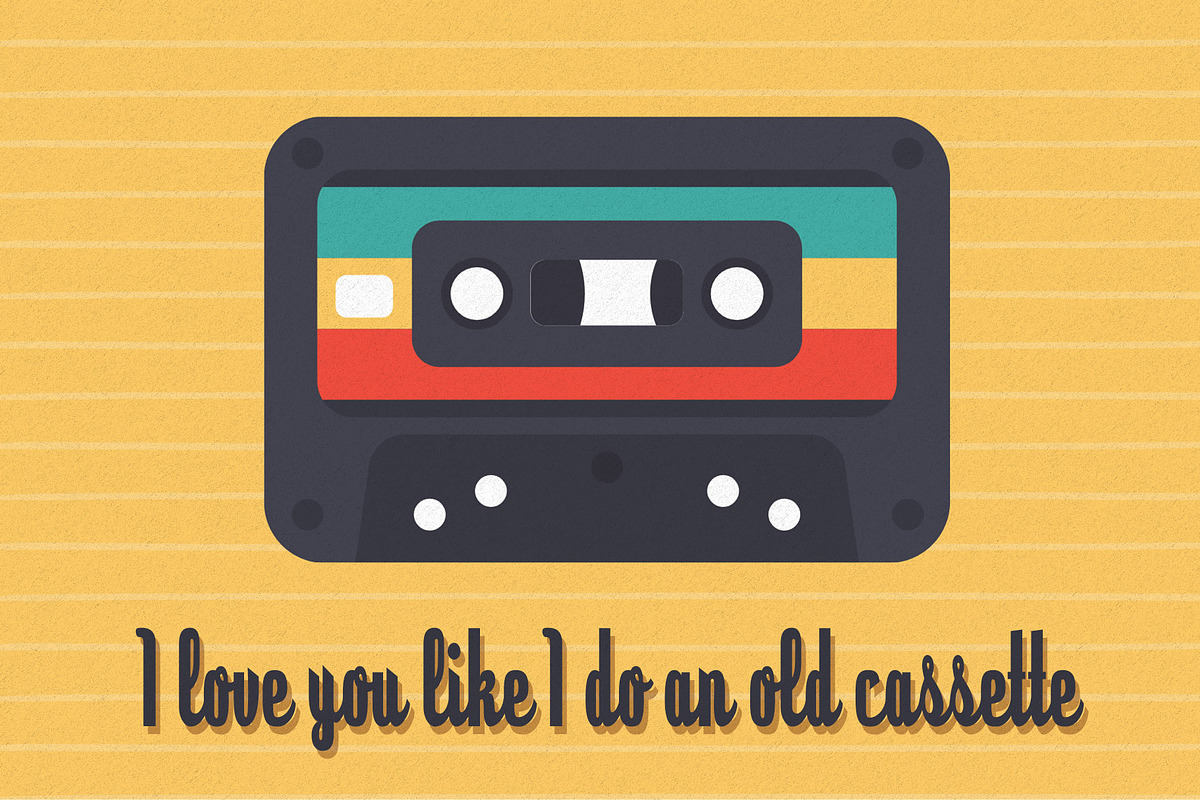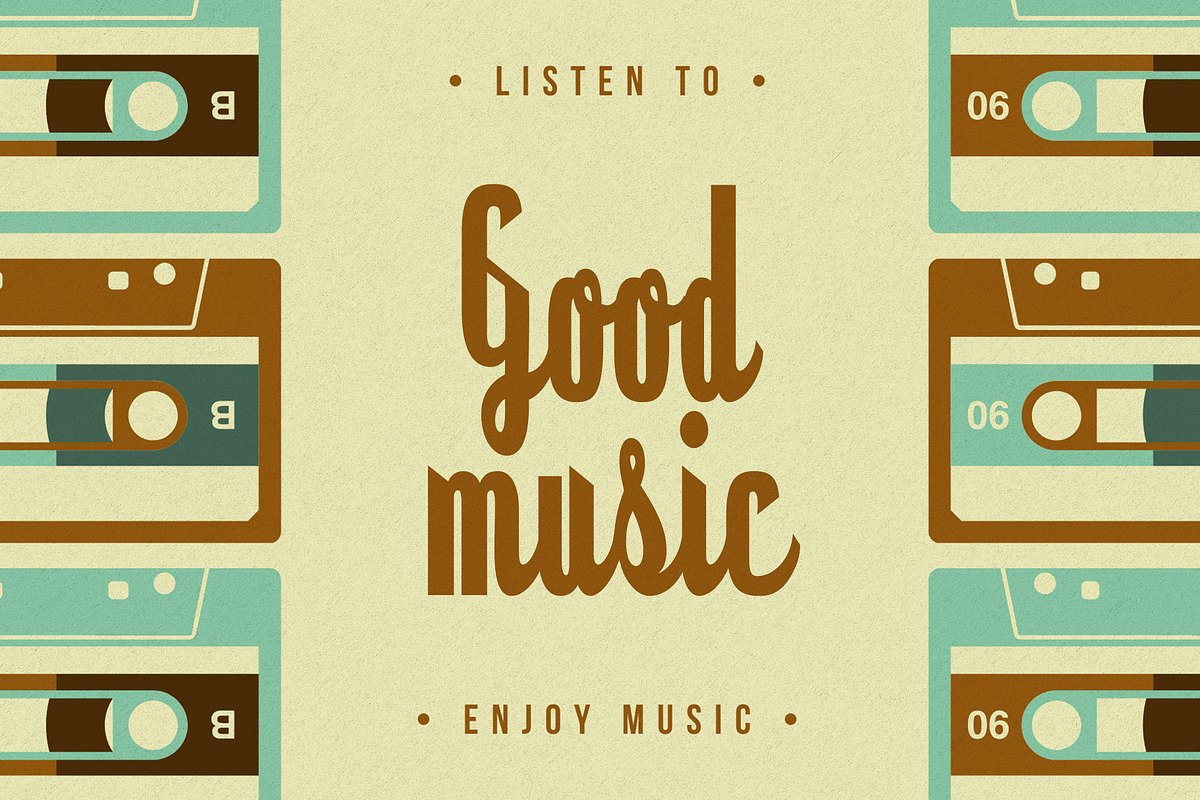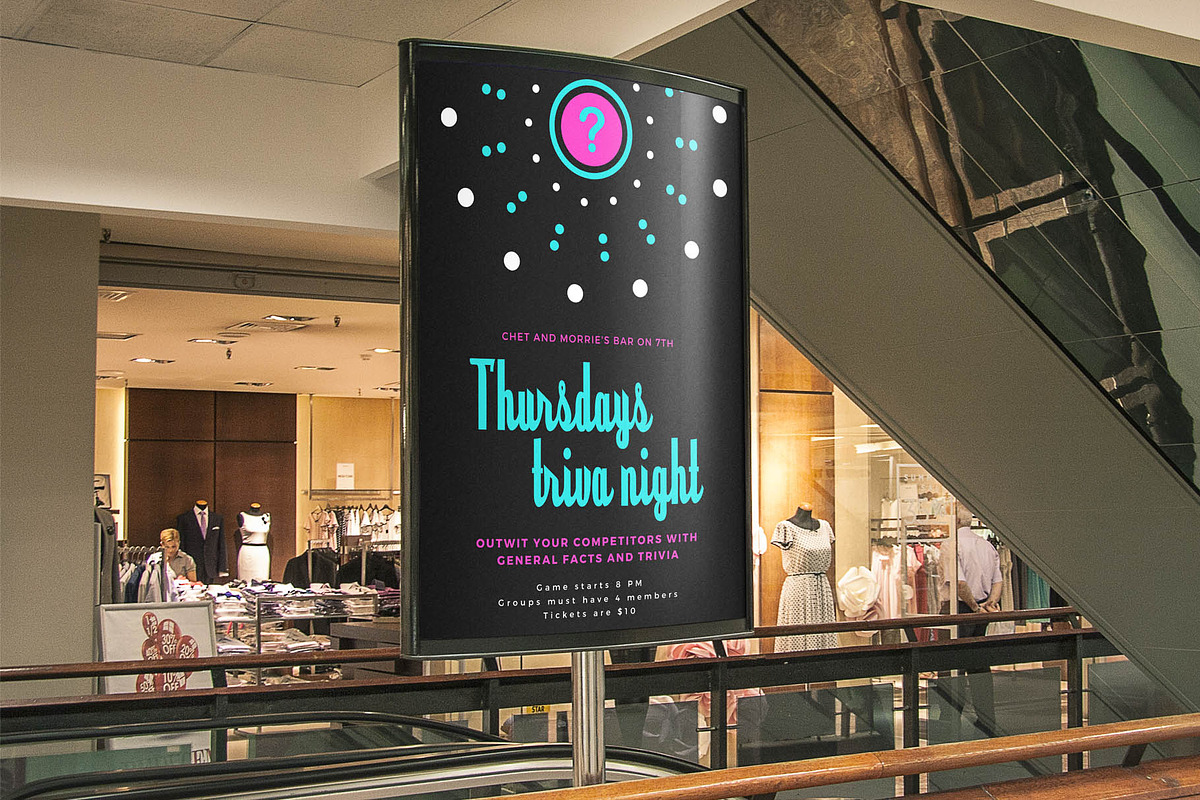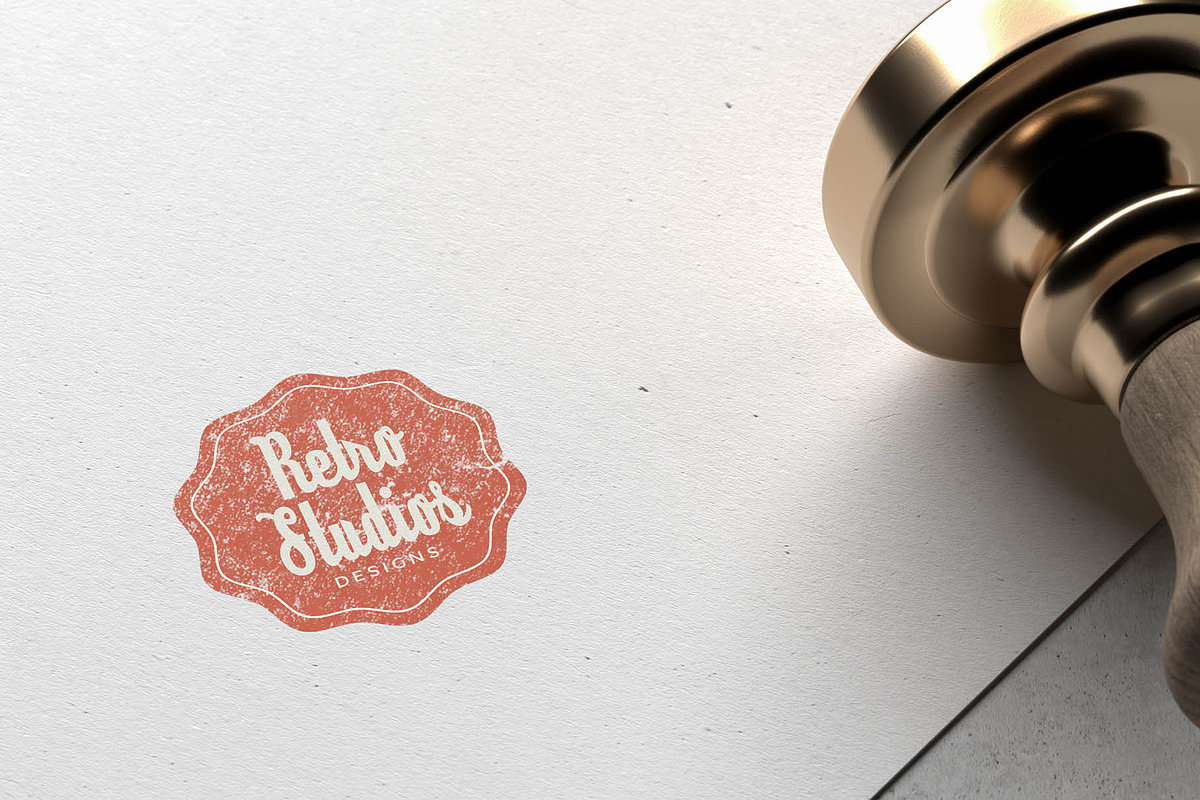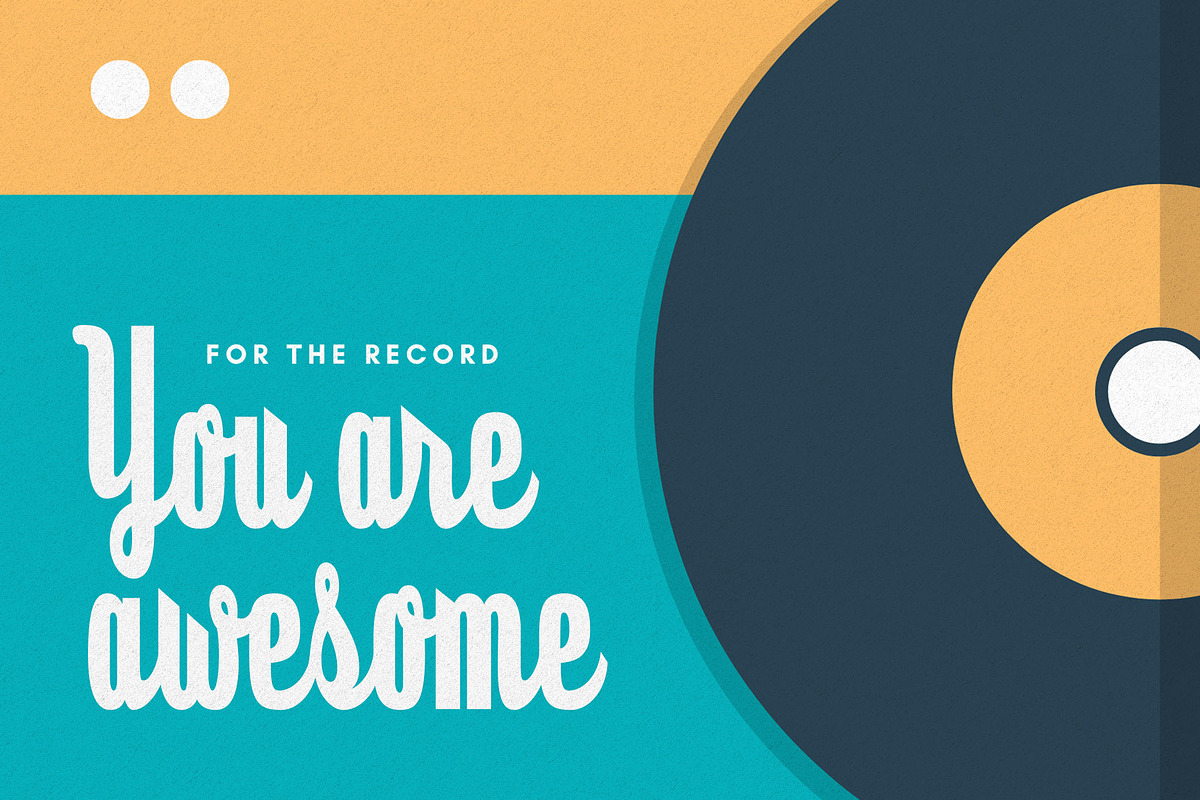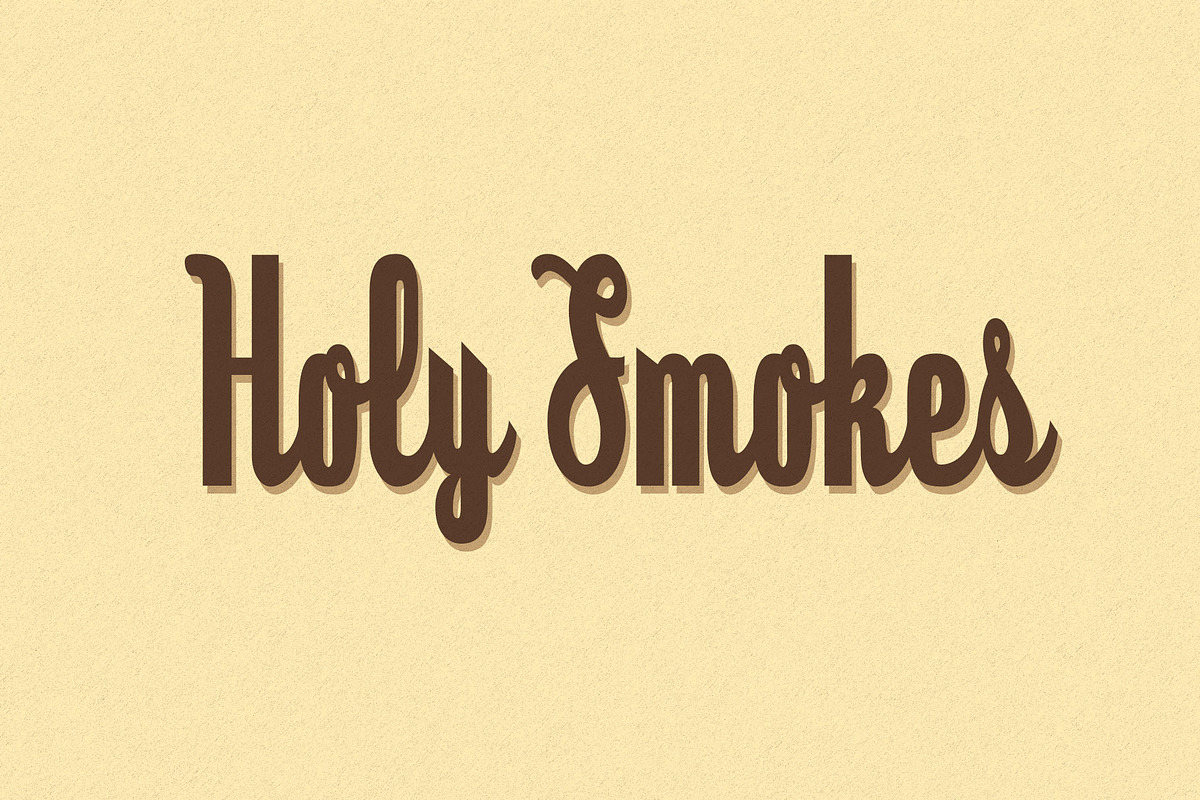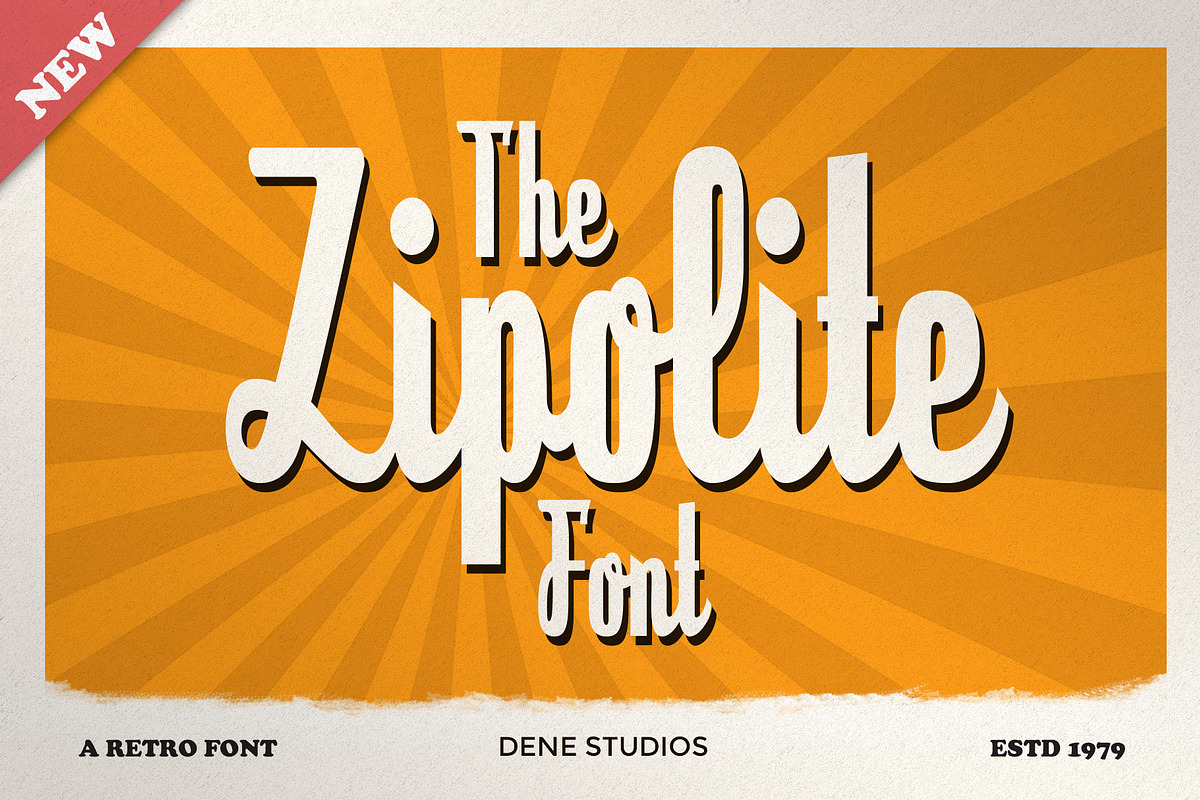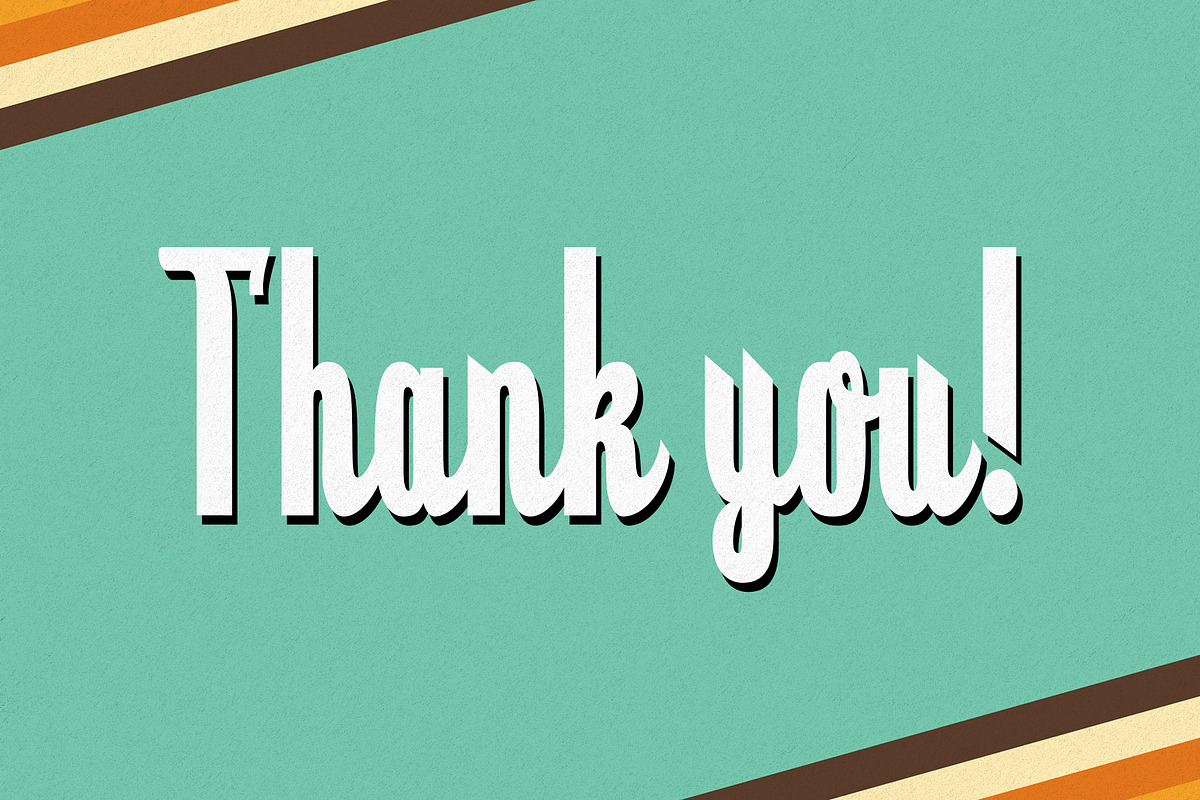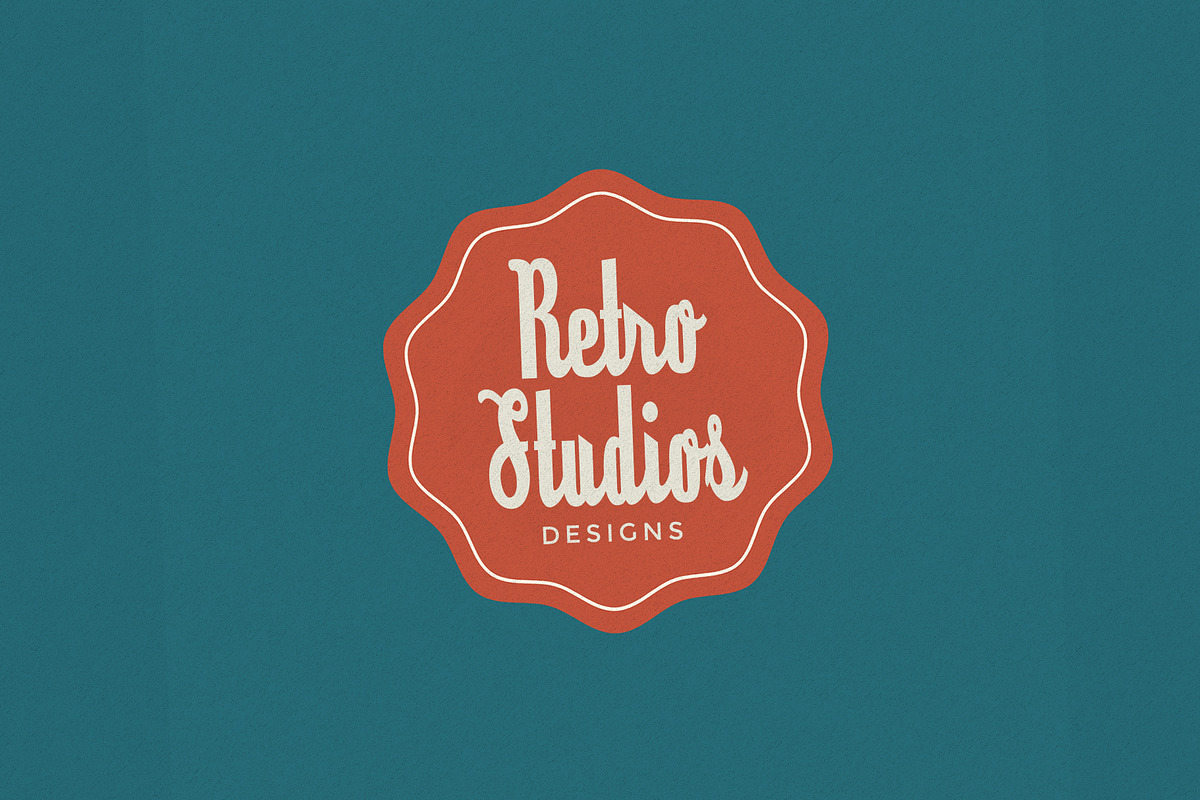
The Zipolite Font
Give your typography design a touch of style with Zipolite!
This font perfectly made to be applied to various designs such as invitations, labels, logos, magazines, books, packaging, fashion, stationery, novels, labels or any type of advertising purpose.